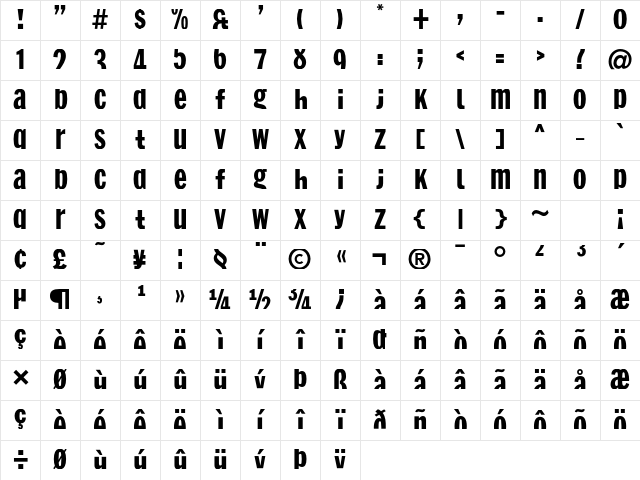
SelfCensorShit Regular Free Font
SelfCensorShit Regular
Design Context for SelfCensorShit
SelfCensorShit is a composed and adaptable typeface that performs quietly and consistently across a wide range of design contexts.